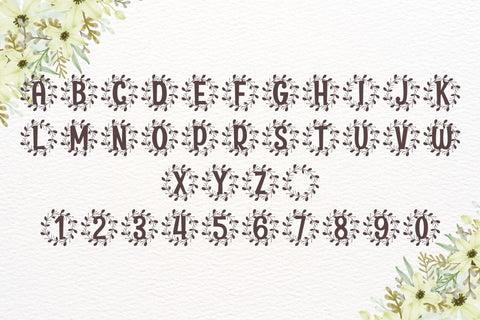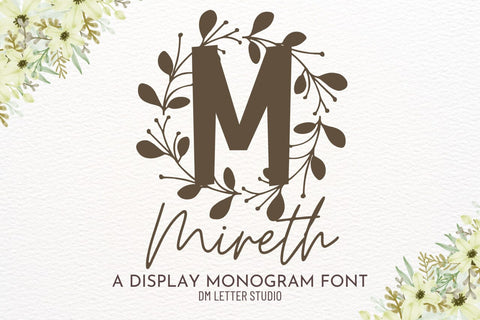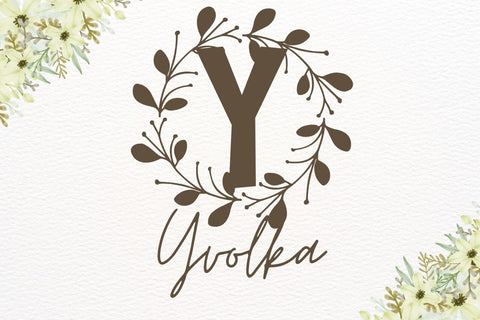
Mireth Monogram Font
Meet Mireth, the Monogram Font
Mireth Monogram Font turns simple initials into polished emblems with a calm, premium feel. Strokes are smooth and balanced, while open counters keep tiny tags readable. Use it for wedding suites, boutique logos, keepsake gifts, and elegant packaging. Moreover, Mireth pairs beautifully with modern serifs and quiet humanist sans fonts, so your layouts look refined without extra work.
Where the monogram font shines
Set single, double, or triple initials for logos, seals, menus, and place cards. Then frame them with laurel rings, oval borders, or fine rules to echo the graceful structure. Since proportions favor symmetry, neat compositions come together in minutes. As a result, your thumbnails stand out across marketplaces and your listings stay consistent from invites to signage.
Design tips for Mireth Monogram
Keep initials large and let white space breathe. Pair the headline monogram with a soft serif or clean sans for supporting text. Add micro shadows, a thin inner stroke, or a delicate frame for depth. Because the forms feel airy, textured papers and metallic accents raise perceived value. However, keep copy short so the monogram remains the hero.
Select stylistic alternates for key letters
Curves tuned for foil, letterpress, engraving, laser, and clean vinyl cutting